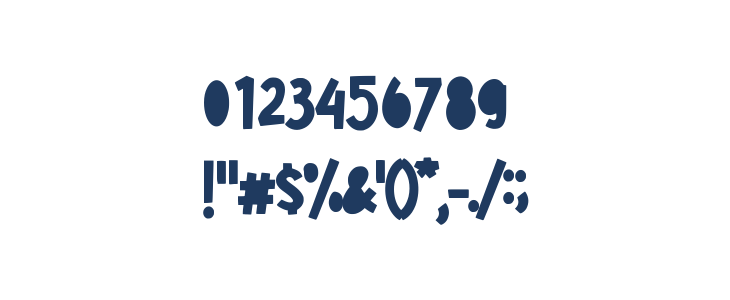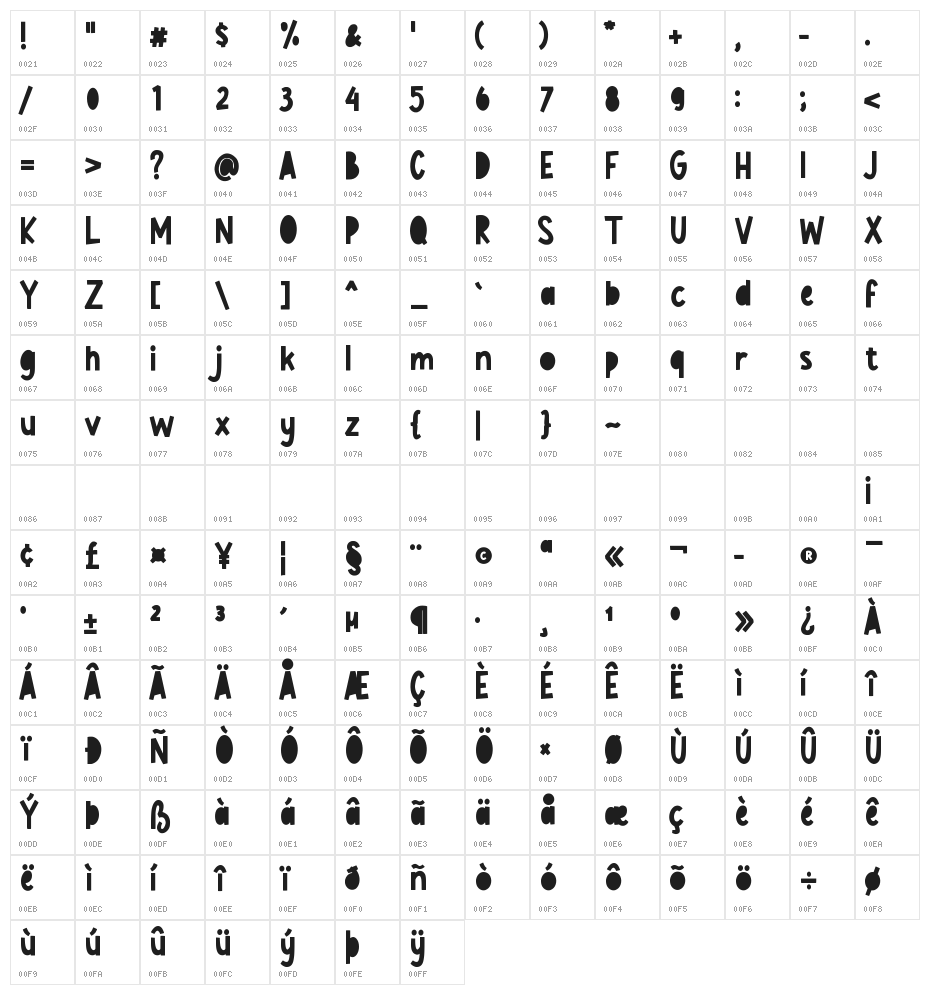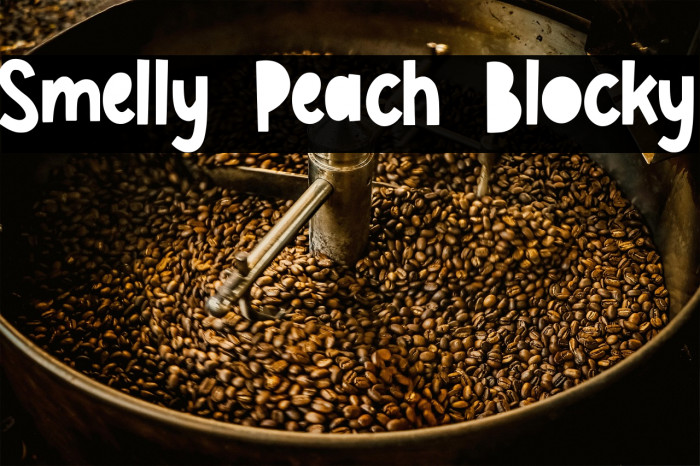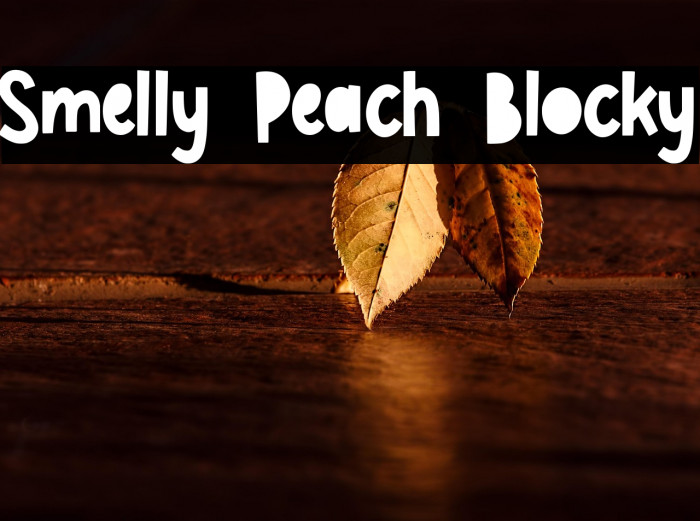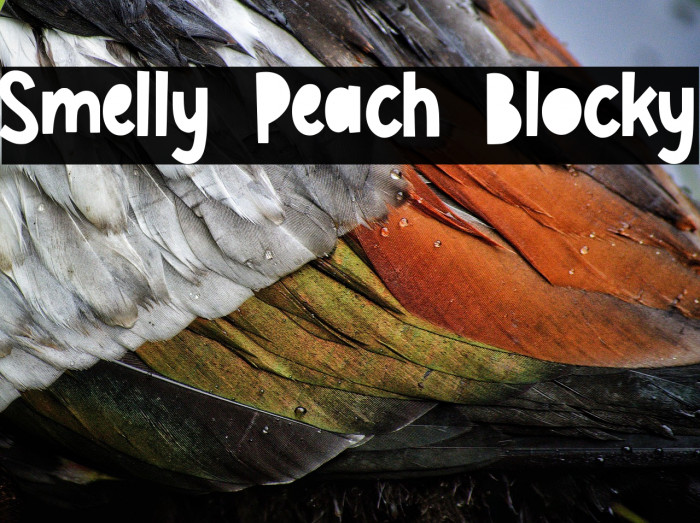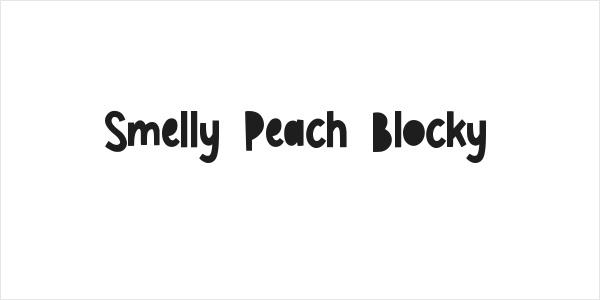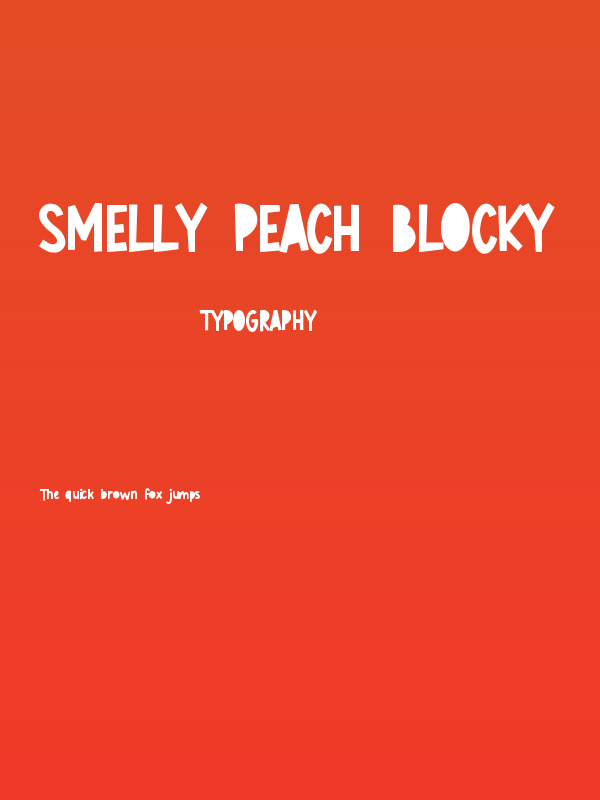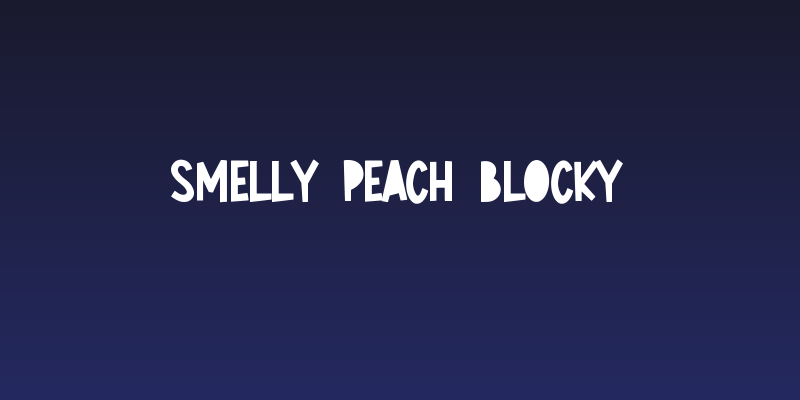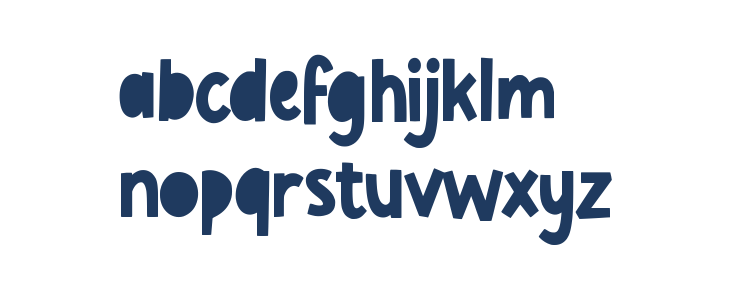
Smelly Peach Blocky Font
Smelly Peach Blocky Description
This font features a playful and bold style with exaggerated, blocky characters that convey a sense of fun and creativity. The uppercase letters are tall and slightly irregular, giving them a hand-drawn appearance. The lowercase letters maintain the same playful aesthetic, with rounded edges and a consistent thickness throughout. Numbers and special characters are designed to match the overall whimsical style, making them suitable for eye-catching designs. The font's unique character shapes and bold presence make it ideal for projects that require a touch of personality and flair.
Overall StylePlayful, Whimsical
Use CaseHeadlines, Posters, Branding
Proposed ProjectsIdeal for children's books, playful branding, posters, and creative social media graphics.